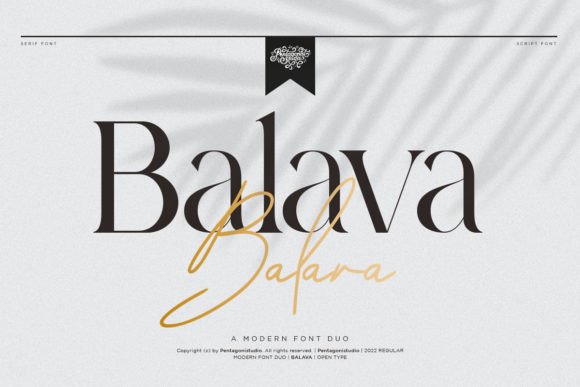
Balava Font
Balava is a modern duo serif and script font. Try these fonts together or apart, and you’ll be amazed by the results! This font is PUA encoded, which means you can access all of the glyphs and swashes with ease!